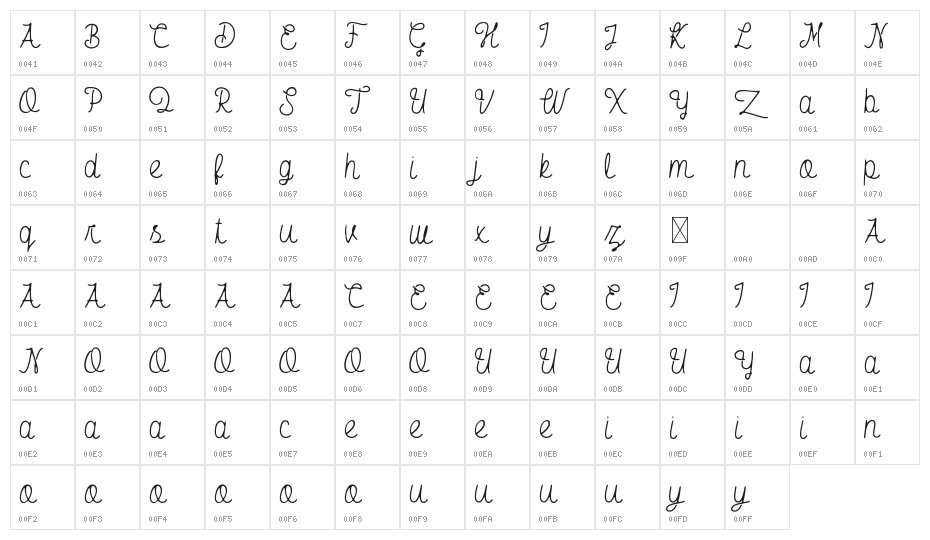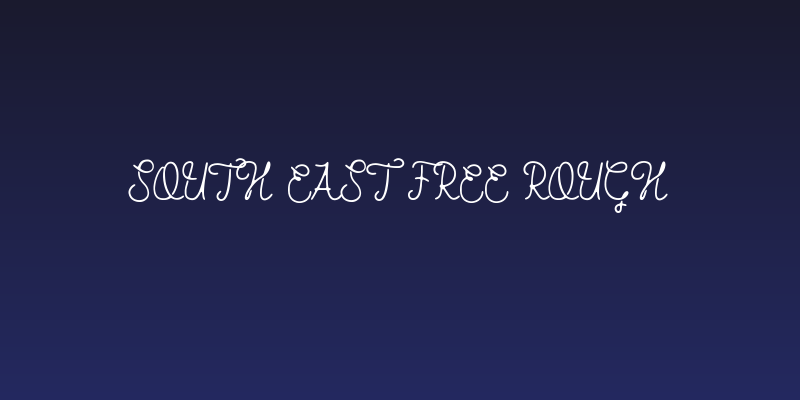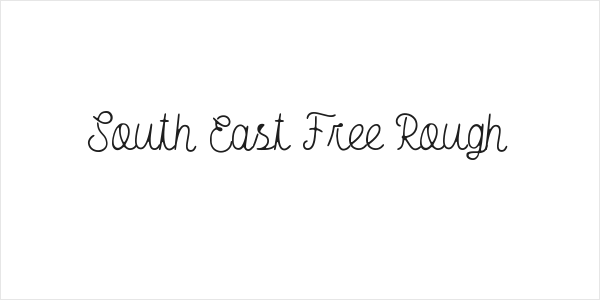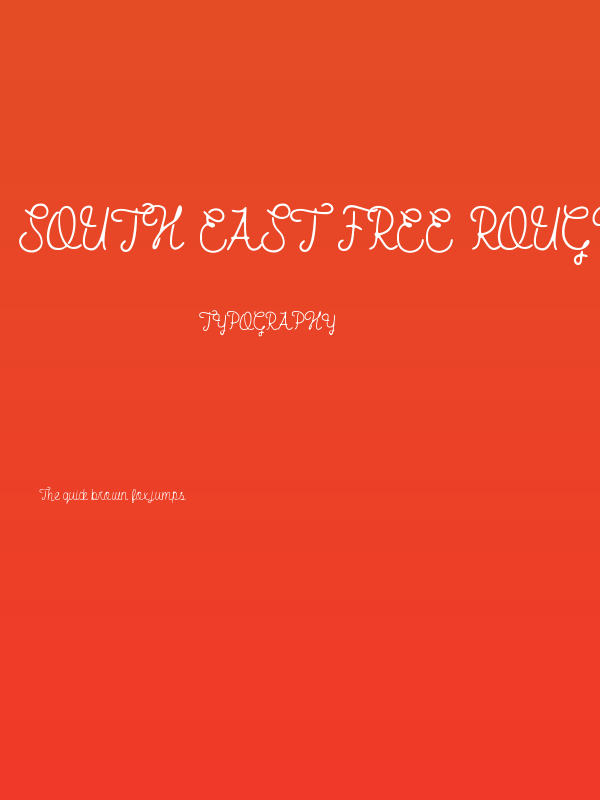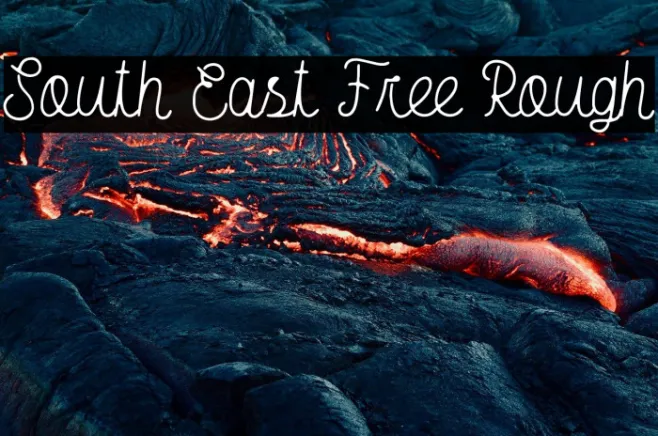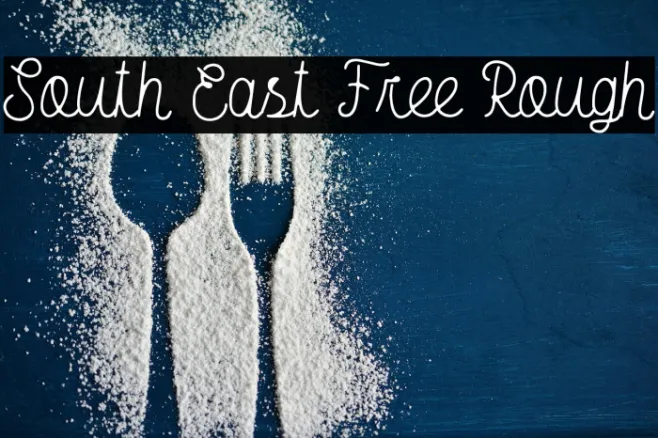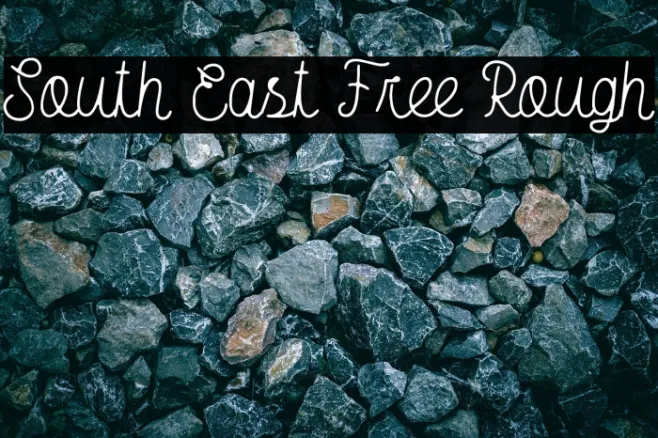
South East Free Rough Font
South East Free Rough Description
This font features a playful and dynamic script style with a hand-drawn appearance. The letters are connected with fluid strokes, giving it an informal and artistic look. The uppercase letters are bold and expressive, while the lowercase letters maintain a consistent flow, enhancing readability. The font includes a full set of uppercase and lowercase letters, numbers, and a variety of special characters. Its rough edges and irregular lines add a rustic charm, making it suitable for creative and casual designs.
| Proposed Projects | Ideal for greeting cards, invitations, posters, and branding projects that require a personal touch. |